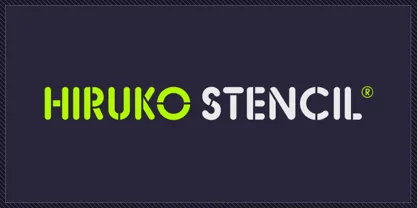
Building on Hiruko’s success, Hiruko Stencil continues the tradition of minimalism and clarity with support for a wide range of languages. Cut in such a way that each character works well with those surrounding it, this font is created with an understanding that even the most minor seeming things can make a big difference. The thick nature of the font makes it work wonderfully at larger sizes, but thanks to the carefully considered cuts in each letter, it remains incredibly legible even when shrunk down, so it’s useful in whatever you intend to craft.